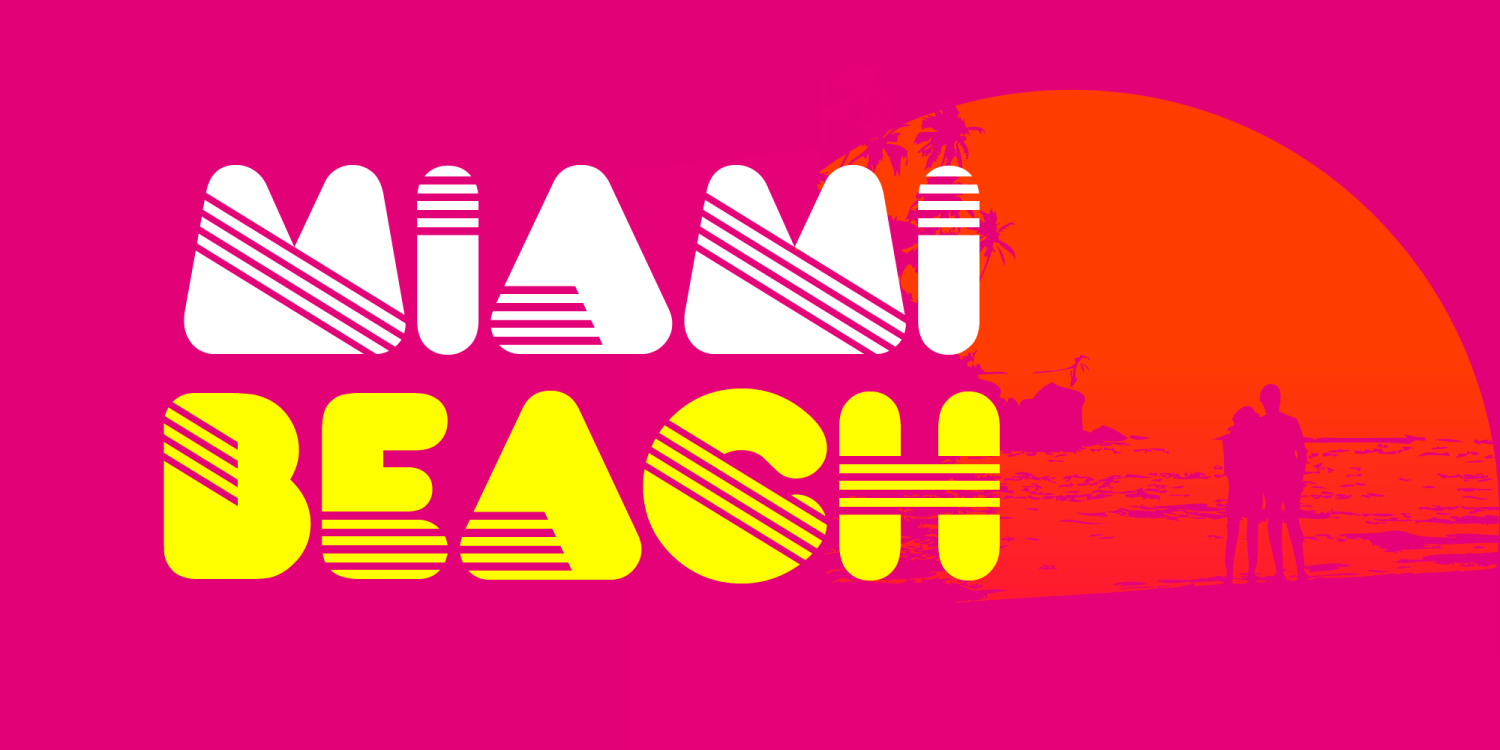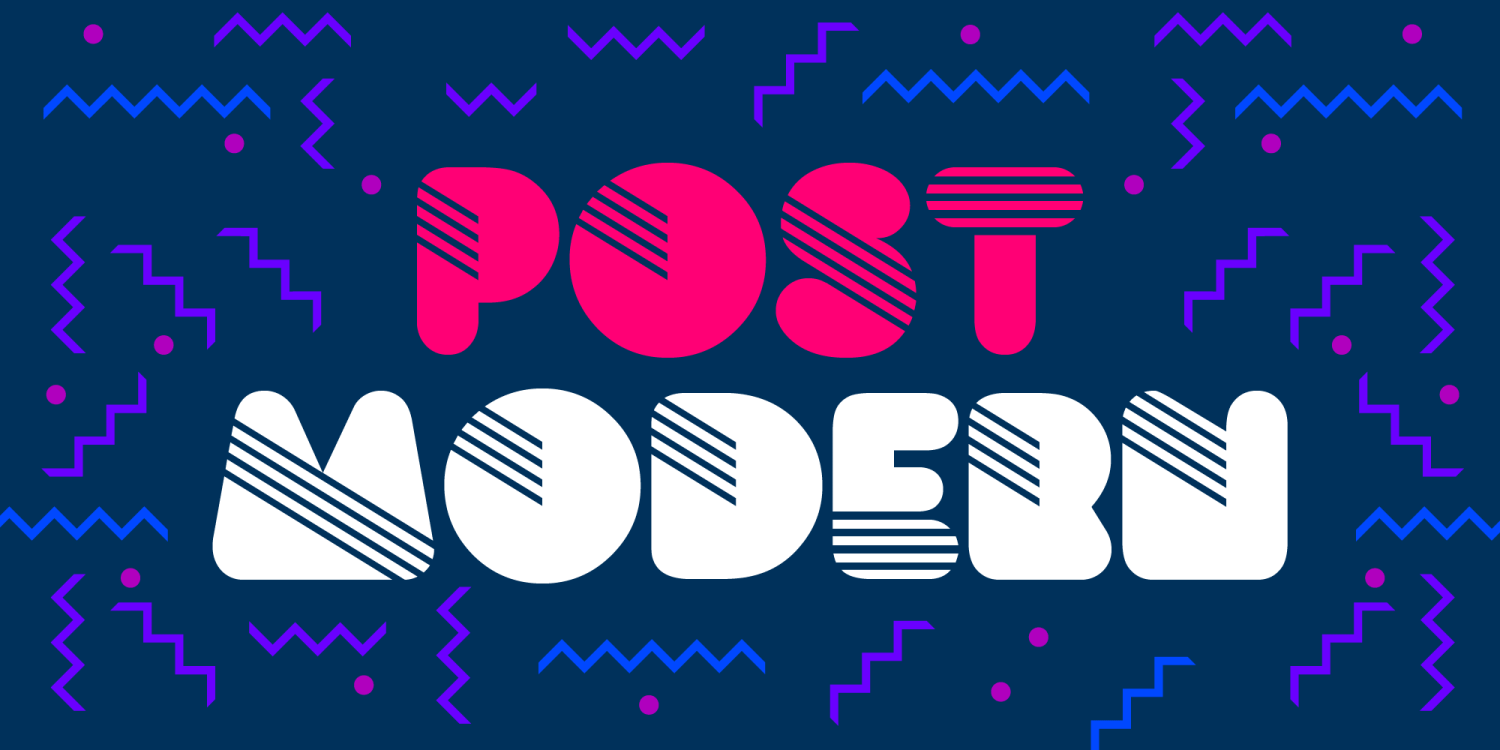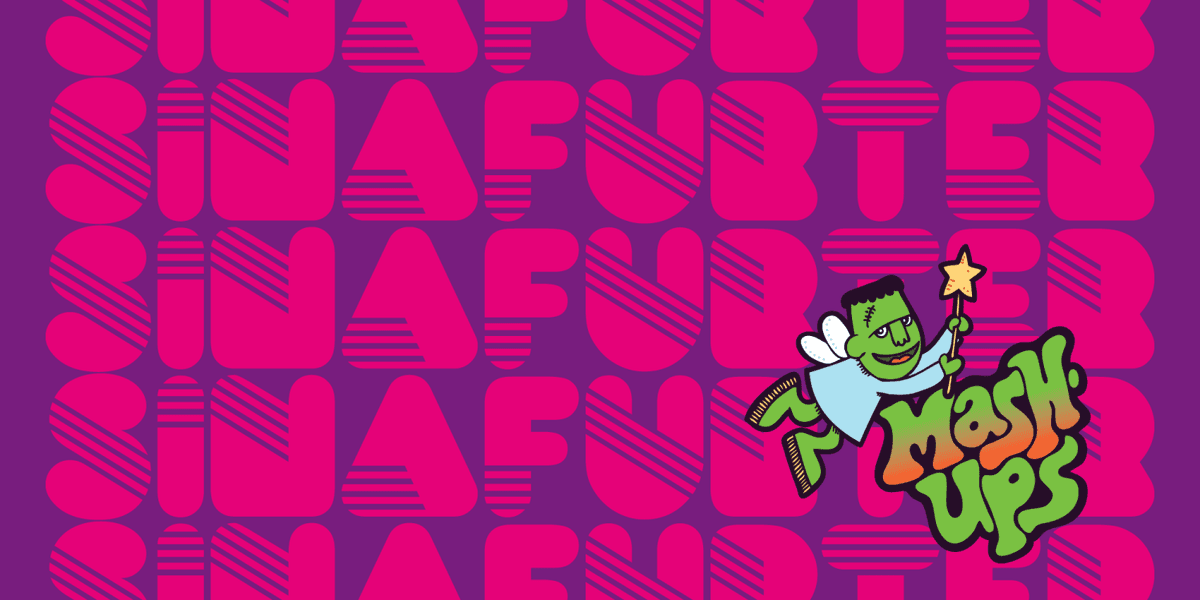
Sinafurter
Hipsters in Los Angeles love a good mash-up. Mash-ups are a remix of a popular song with another song, usually by combining the beat of one with the a capella from another. Peanut butter and chocolate, ebony and ivory, so many great things go great together, it's about time somebody had the guts to take that theory in the font design word. So without further adieu, I present Sinafurter, the first font Mash-Up in the series.